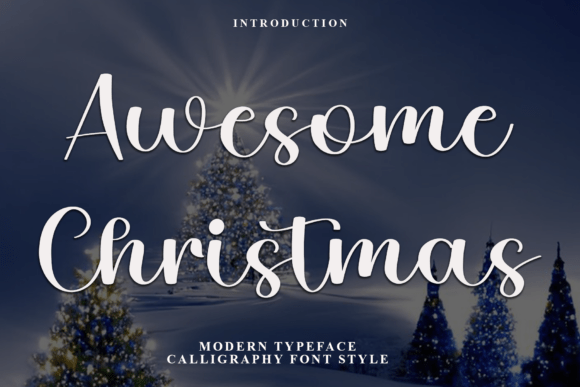
The Magic of the Holiday Season: Introducing Awesome Christmas Font
As the snowflakes start to fall and the twinkling lights adorn the streets, there’s no better time to get creative and spread some holiday cheer. You’re sitting at your desk, surrounded by wrapping paper, ribbons, and festive decorations, trying to come up with the perfect design for this year’s holiday cards. And then, it hits you – the perfect font to capture the essence of the season.
Enter Awesome Christmas Font, a merry and festive typeface that’s sure to add a touch of enchantment to your designs. With its decorative elements and whimsical flair, this font is perfect for greeting cards, gift tags, and holiday-themed projects. As a designer, you’ll appreciate the ease of use and the value it brings to your typography, making it a must-have for any holiday project.
- Unique Characteristics: The Awesome Christmas Font features a festive and playful design, with intricate details and ornaments that evoke the spirit of the holiday season.
Designer Review: “Awesome Christmas Font”
Overall, I’d say “Awesome Christmas Font” is a decent choice for holiday-themed projects. Here’s what I like about it:
- ✨ Unique and playful style that captures the spirit of Christmas.
- ✨ A wide range of characters, including ornaments, snowflakes, and even a few festive animals.
- ✨ Compatible with most font sizes and styles, making it easy to integrate into various designs.
- ⚠️ The font can feel a bit overwhelming with too many characters and ornaments, which might be difficult to read at smaller sizes.
- ⚠️ The design doesn’t feel particularly cohesive, with some characters looking more cartoonish than others.
- ⚠️ There’s a noticeable lack of customization options, making it difficult to tailor the font to specific design needs.
In terms of overall impression, I’d give “Awesome Christmas Font” 3 out of 5 stars. While it’s a fun and festive choice for holiday projects, its limitations make it less versatile than other options. Still, if you’re looking for a playful and eye-catching font for a specific project, it might be worth considering.
For the most effective use of Awesome Christmas Font, use it for festive designs, holiday cards, and seasonal marketing materials.
Some common use cases include:
- Christmas card designs
- Holiday party invitations
- Seasonal social media posts
- Gift tags and wrapping paper